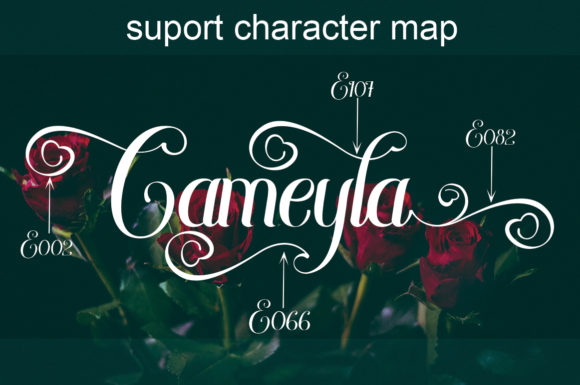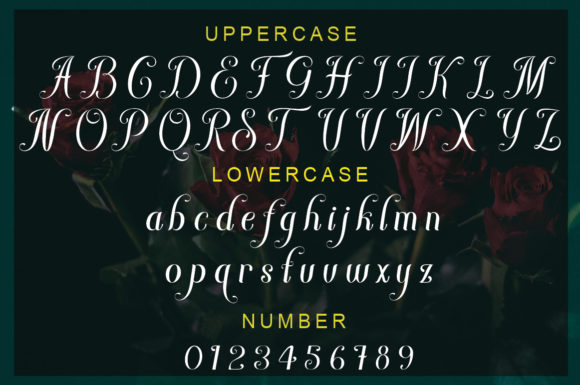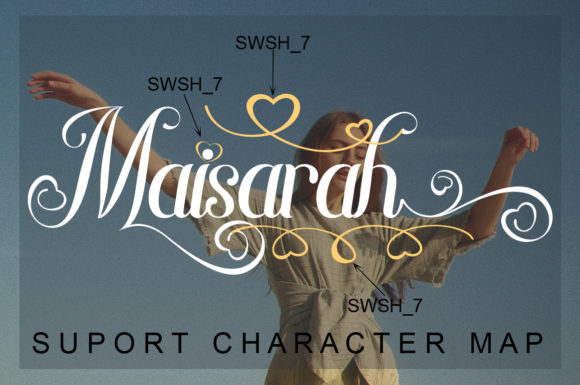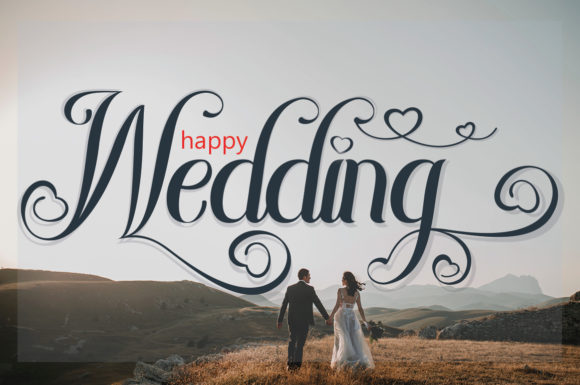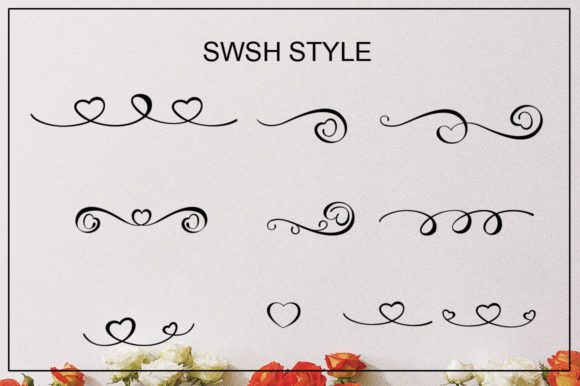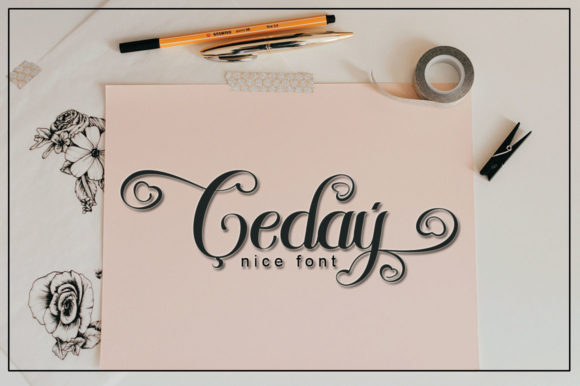
Introduction to Maisarah Font
Maisarah is a beautiful handwritten font.
It features a varying baseline, smooth lines, gorgeous glyphs and stunning alternates It will elevate a wide range of design projects to the highest level, be it branding, headings, wedding designs, invitations, signatures, logos, labels, and much more.
Key Features of Maisarah Font